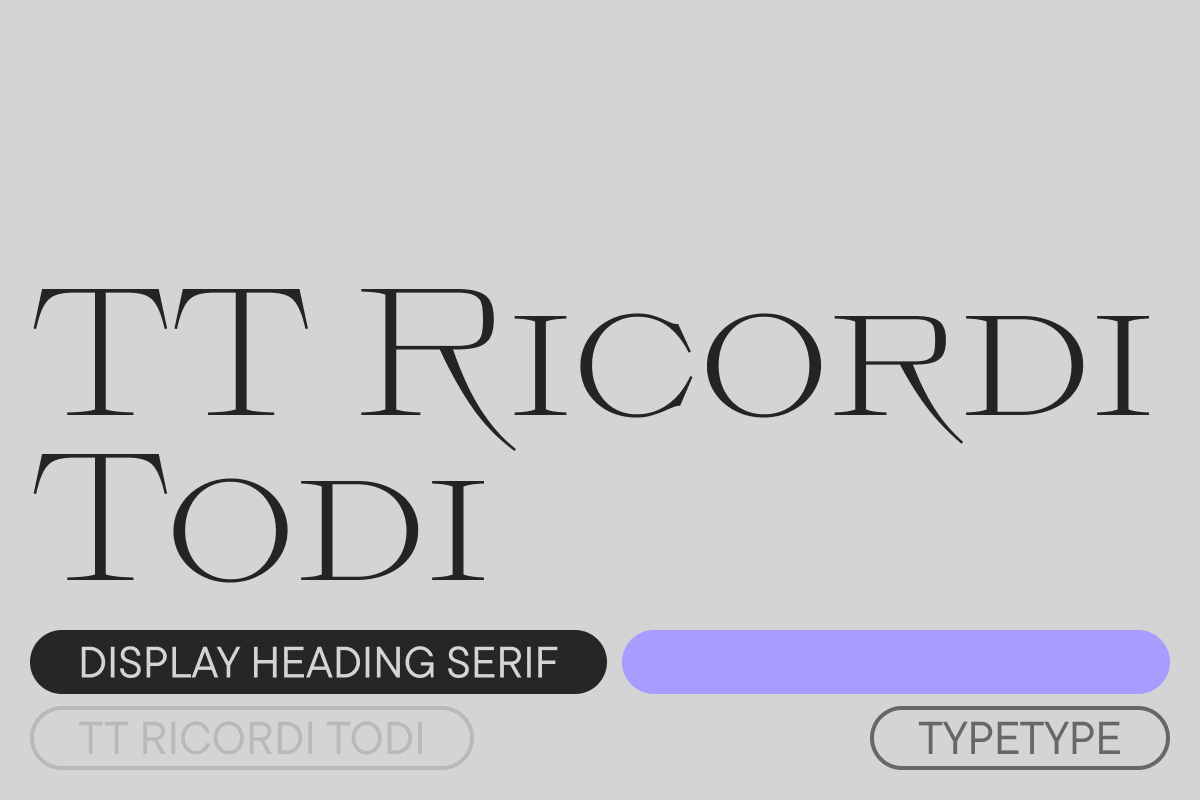
TT Ricordi Todi Regular
TT Ricordi Todi is a wide serif with a classic base and a contemporary nature. The font turned out to be refined yet sharp, and in places even pushy and aggressive. The project was based on plaques with engraved street names from the small Italian town of Todi. The main challenge was to decipher the characteristic features of the signs and emphasize them in a modern way.